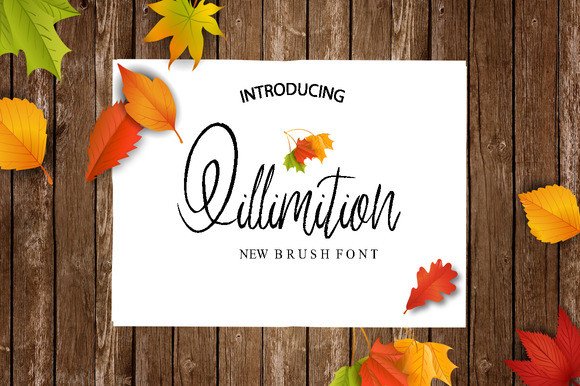
Behold, the Qillimition Font, a script font family crafted by Only The Originals, etched with elegance and poised to captivate your creative vision. Prepare to be mesmerized by its sweeping strokes, graceful curves, and the delicate dance of each letterform.
Journey into a world of enchanting possibilities as you wield Qillimition to bestow an air of sophistication upon your invitations, greeting cards, and branding materials. Allow your business cards to exude professionalism, while your quotes, posters, and t-shirts radiate a touch of timeless allure.
Unleash your creativity and embark on a typographic adventure with Qillimition, the font that knows no bounds. Its versatility is a symphony of styles, adaptable to a myriad of design endeavors. Whether you seek a touch of whimsy or a dash of elegance, Qillimition stands ready to elevate your designs to dizzying heights.
Immerse yourself in the beauty of Qillimition, a font that captures the essence of handwritten artistry, transforming digital spaces into intimate, personal expressions. Its brush-like strokes dance across the screen, inviting viewers to connect with the soul of your words.
Qillimition is more than just a font; it's an experience, an invitation to explore the depths of your imagination and to share your unique vision with the world. Its every curve and flourish beckons you to embrace the extraordinary, to leave an indelible mark on the hearts of your audience.
Let Qillimition be your muse, your faithful companion in the realm of design. As you mold it, shape it, and infuse it with your creative spirit, you'll discover a font that seamlessly blends the classic and the contemporary, the familiar and the unexpected.
With Qillimition at your disposal, you hold the power to transform ordinary words into captivating expressions, to elevate your designs beyond mere aesthetics into realms of emotional resonance. It's a font that speaks to the heart, leaving an indelible imprint on the minds of those who encounter it.